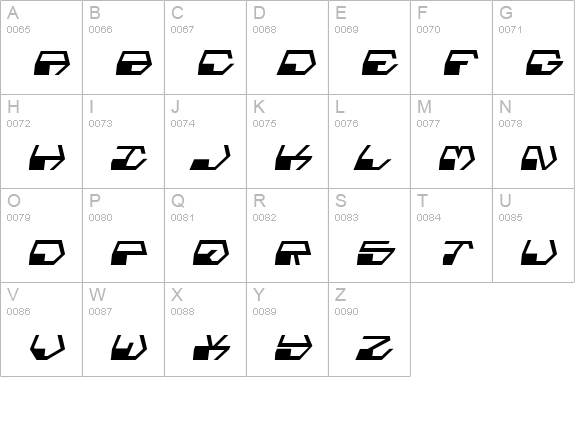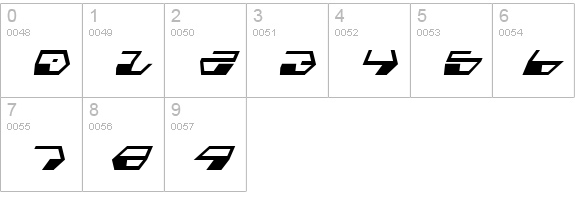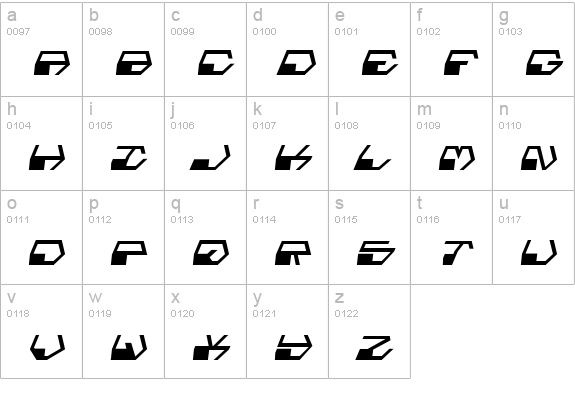
Deranian Italic is a distinctive, italic variant in the Deranian typeface family \xE2\x80\x94 well suited to design and typography projects.
Deranian Italic is a sleek and modern font that exudes elegance and sophistication. With its slanted and stylish design, this font is perfect for adding a touch of class to any project. Whether you're creating invitations, signage, or branding materials, Deranian Italic will make a bold statement. What makes Deranian Italic even more appealing is that it is completely free to download at FontsMarket.com. This means you can elevate your designs without breaking the bank. Don't miss out on the opportunity to add this stunning font to your collection and take your projects to the next level. Download Deranian Italic today and let your creativity shine.